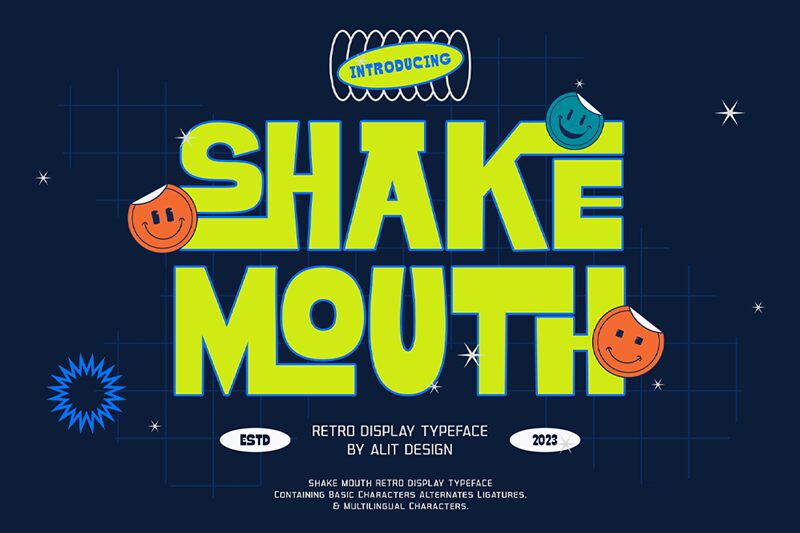
Shake Mouth Regular
Shake Mouth font by Alit Design is a bold retro display font that instantly captivates an audience with its eye-catching appearance. Modern, geometric, structured, assertive, and with a strong presence, it is made for contemporary applications that include headline use in branding and advertising.
Free to download and use, this typeface has 70s inspirations made for posters with music or event themes where audiences are first drawn in by the visuals. Create logos, clothing designs/labels/tags for apparel lines as well as packaging top labels or cover pattern repetitions for beverages like bottles.
Shake Mouth